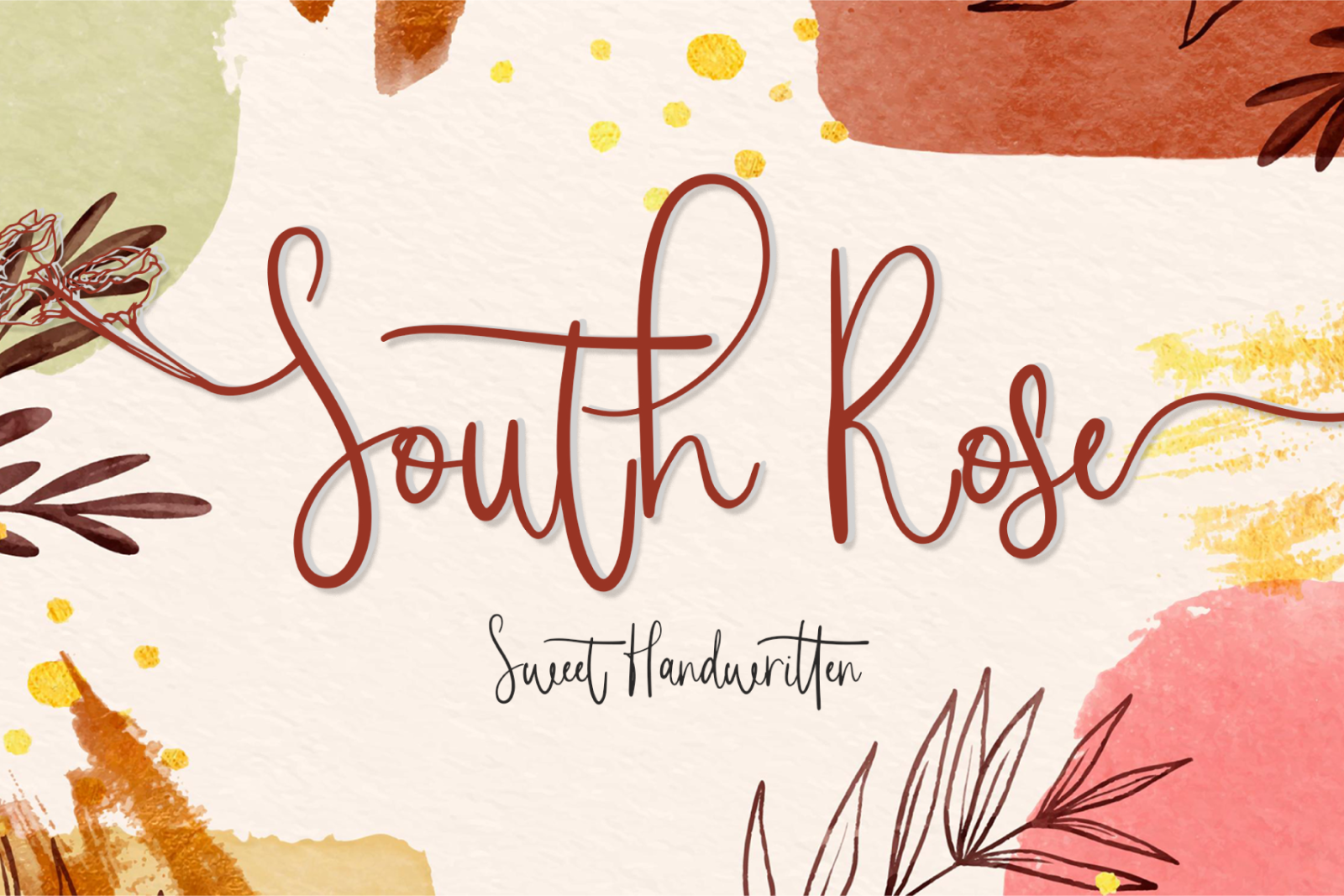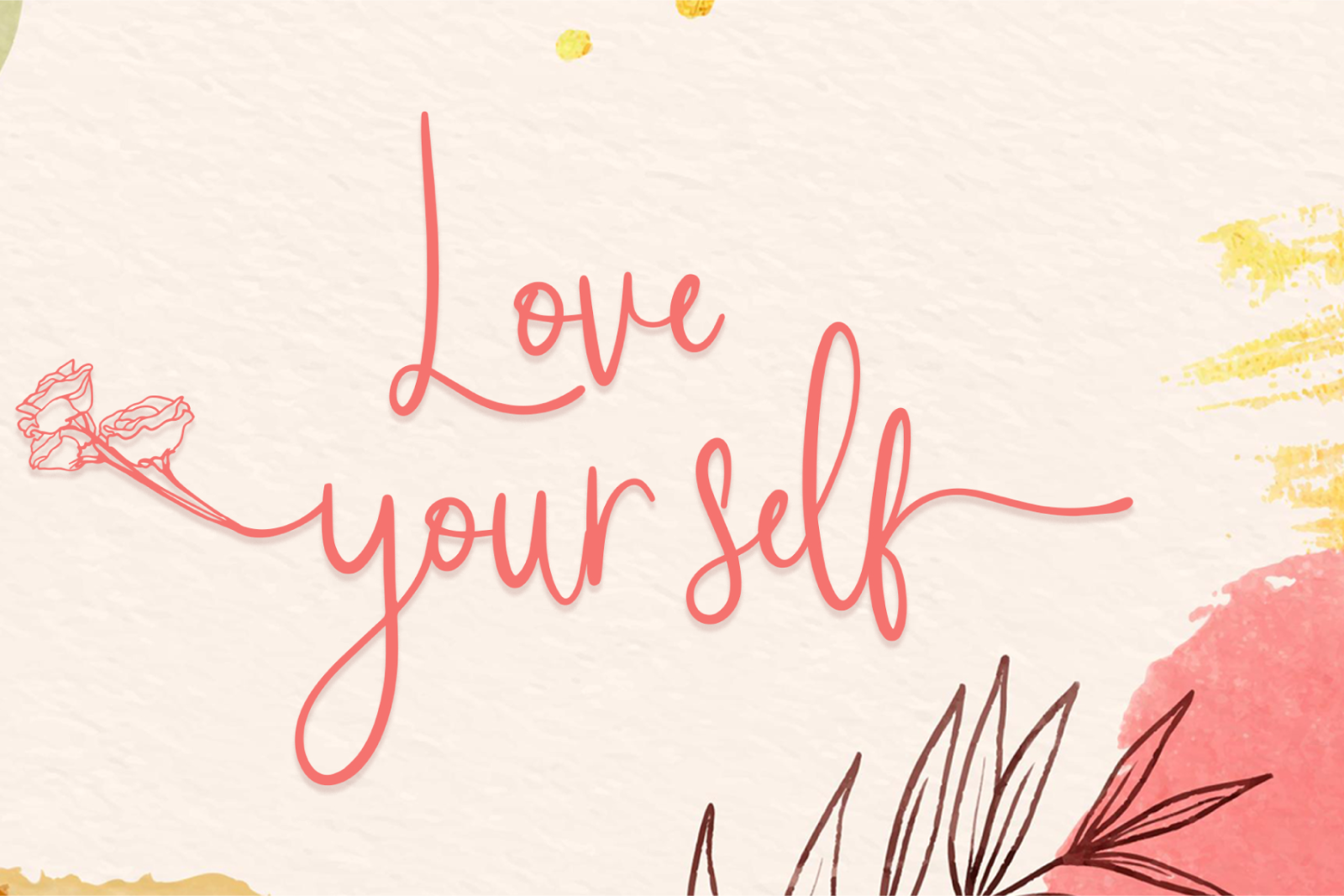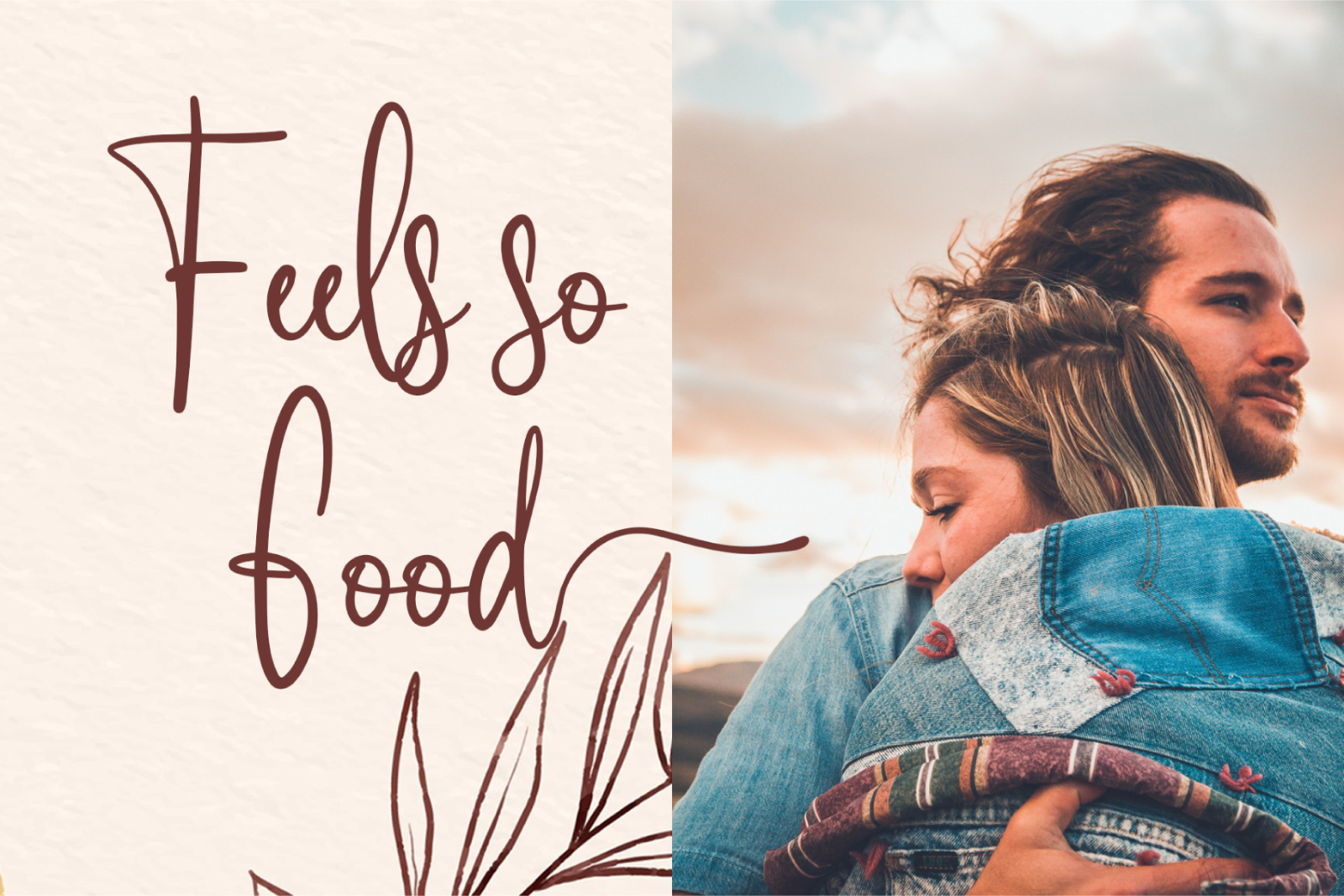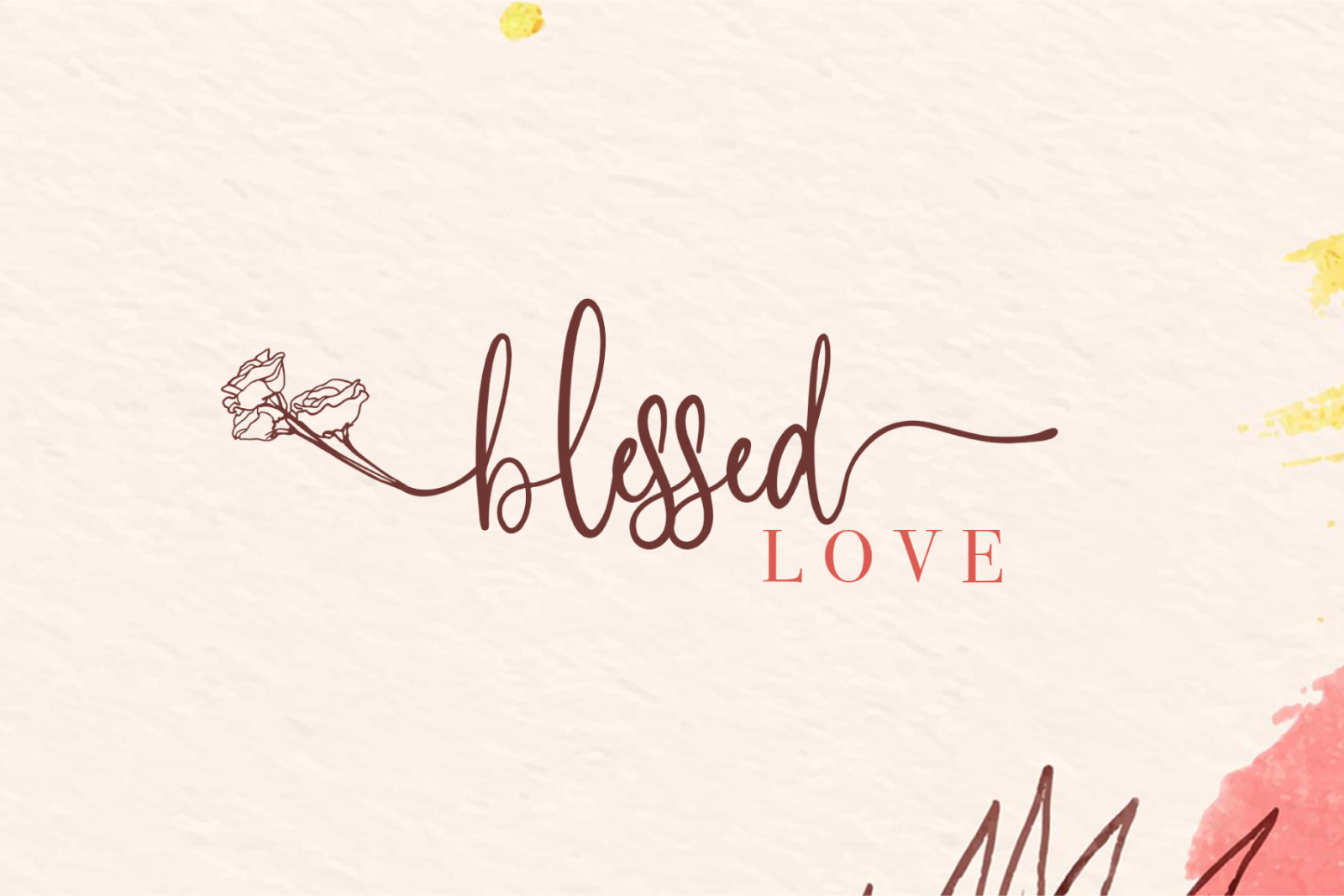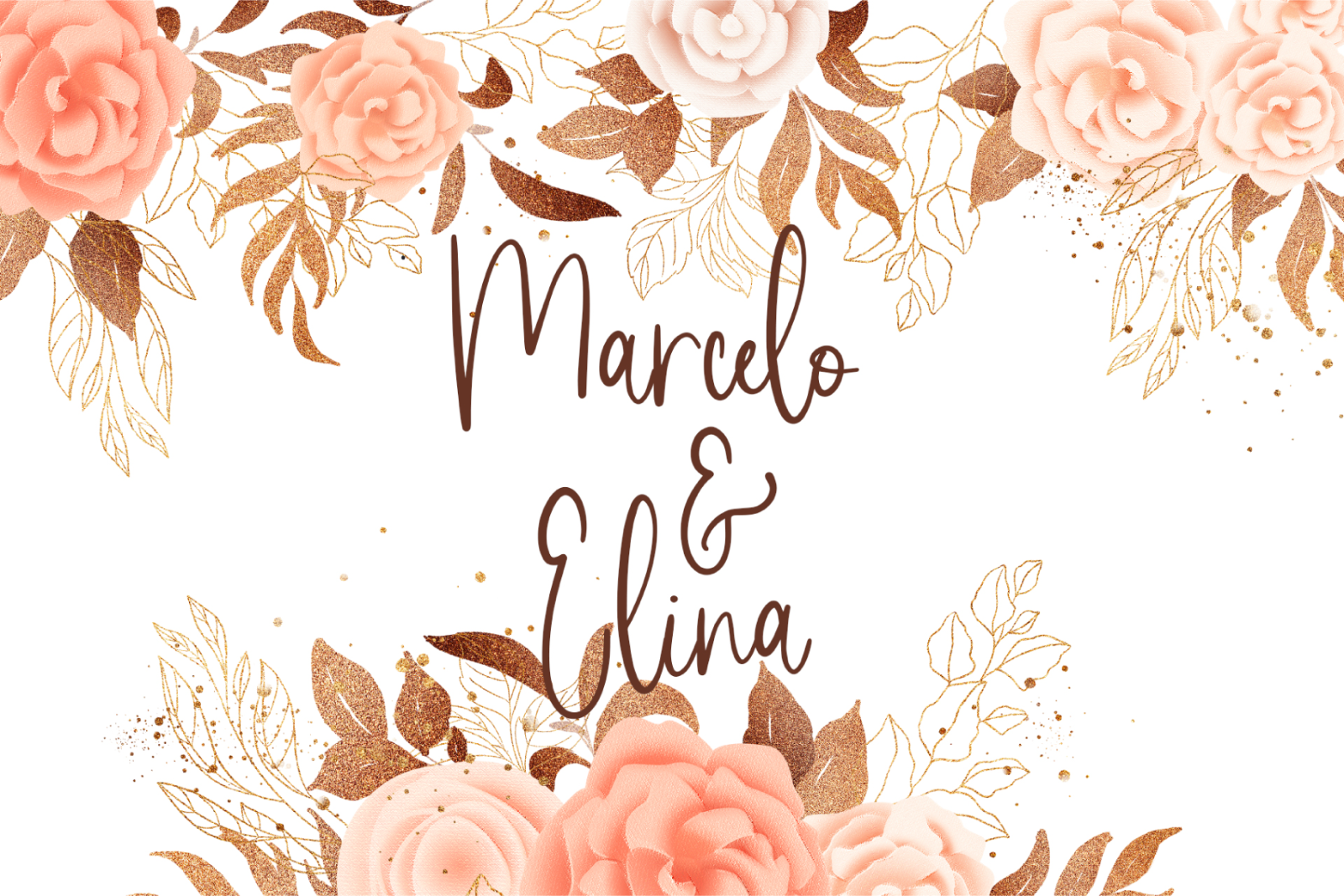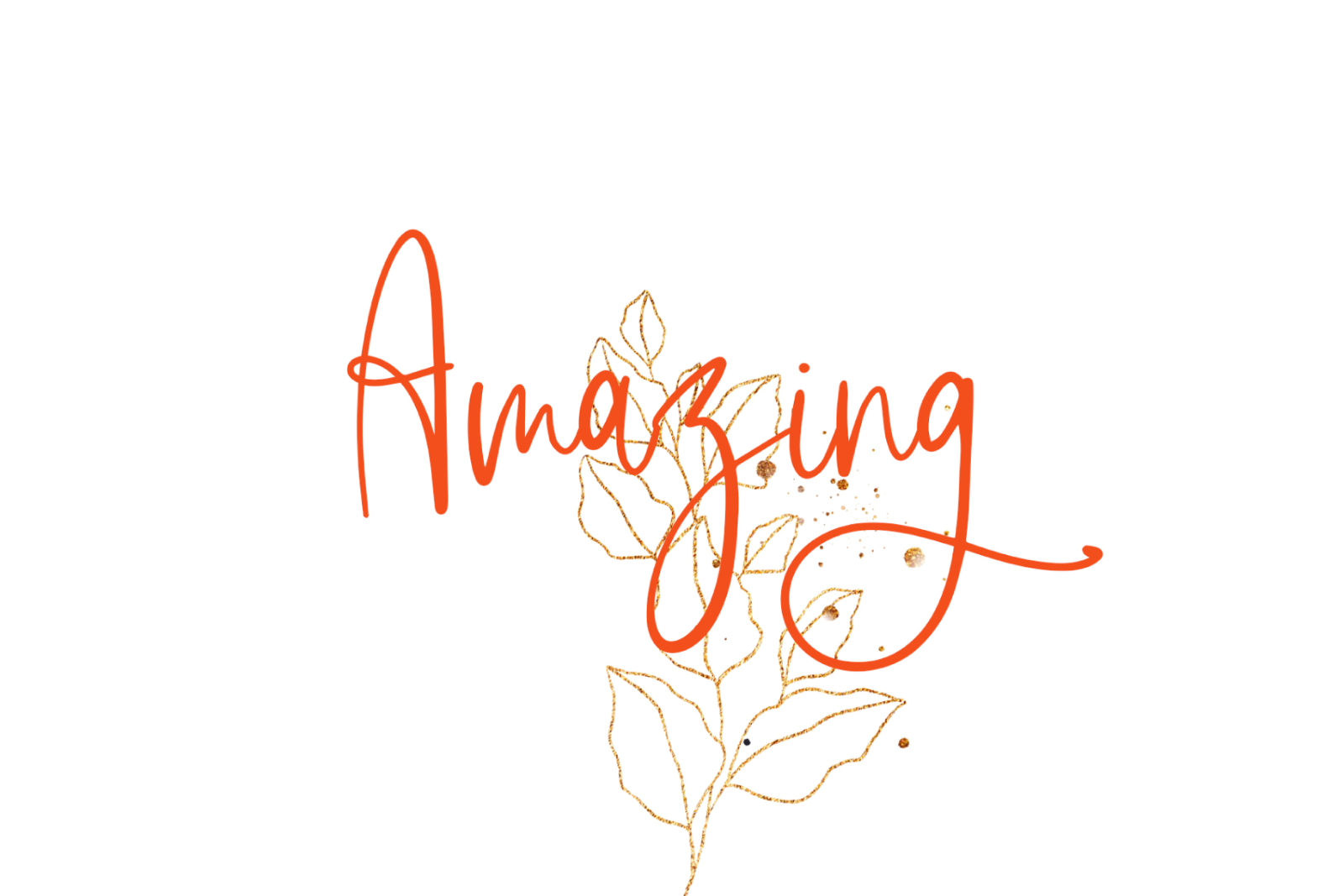
South Rose is modern sweet Calligraphy. South Rose is such the perfect typeface for any kind of your project, such as advertisements, branding, graphic design, quotes, wedding design, logo for online or offline business, photography, and others. Make your business more beautiful!